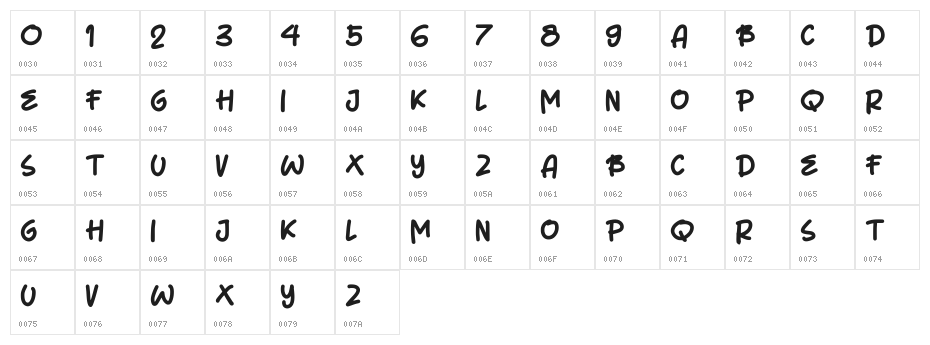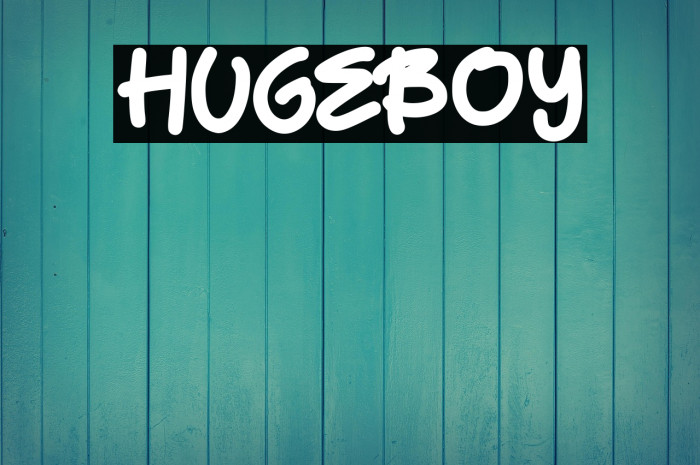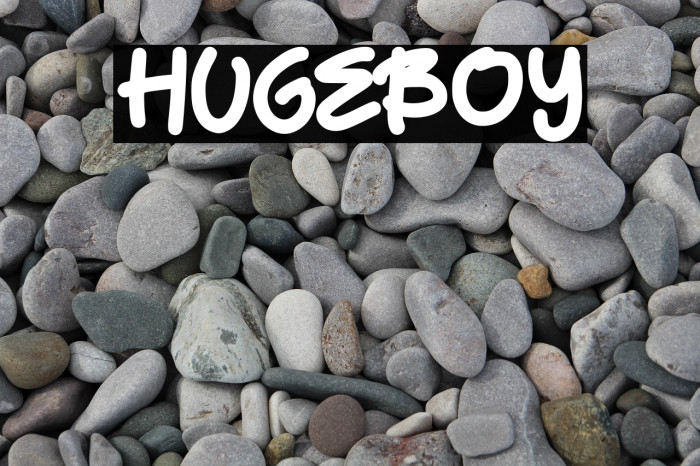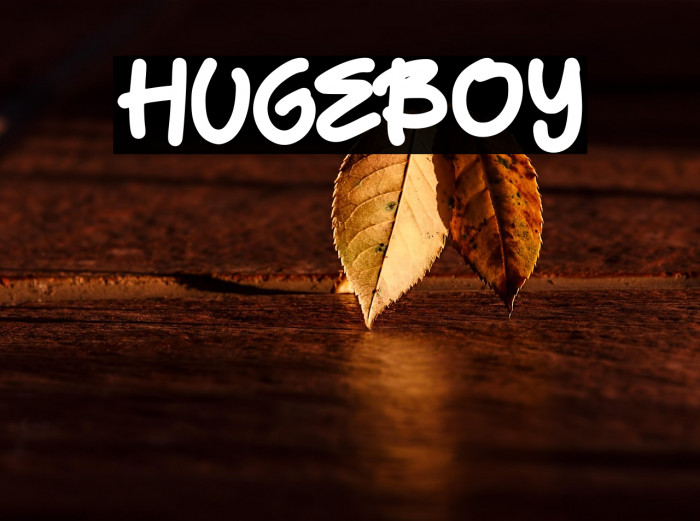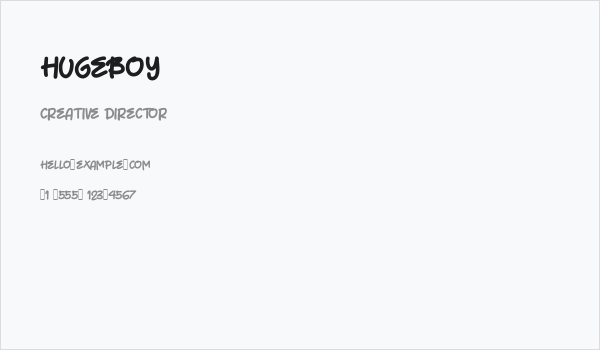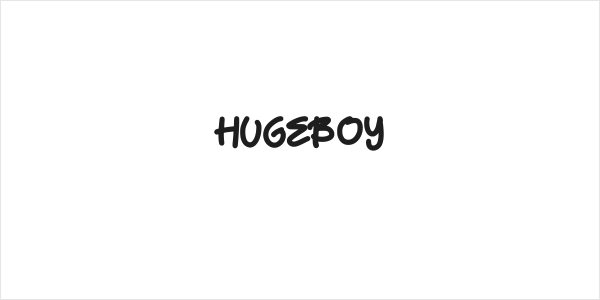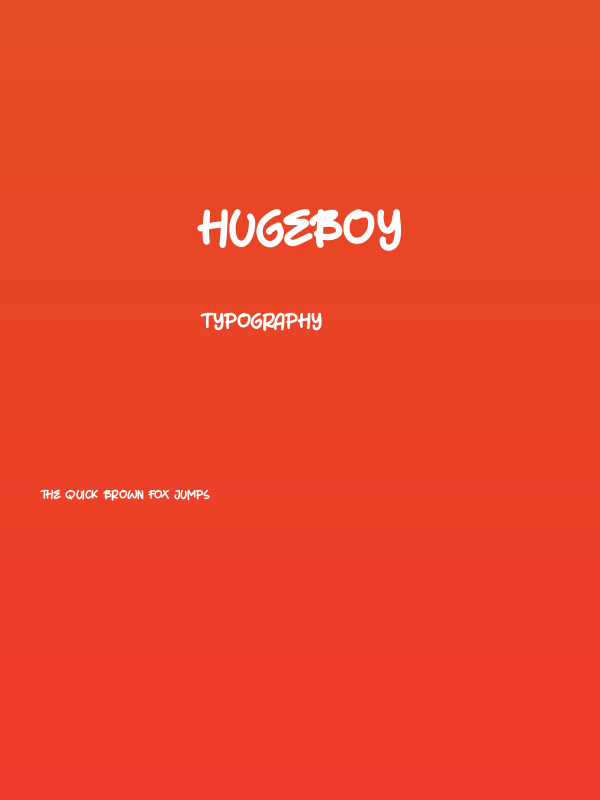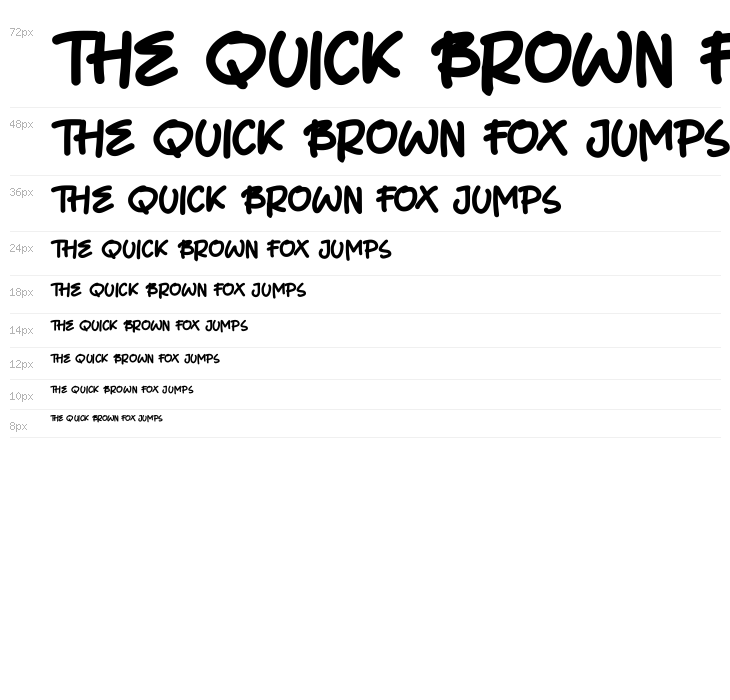
HugeBoy Font
HugeBoy Description
This font features a bold, playful style with a handwritten appearance. The characters are rounded and slightly slanted, giving them a dynamic and energetic feel. The strokes are thick and consistent, providing a strong visual impact. The overall design is casual and friendly, making it suitable for informal and creative projects. The font maintains a uniform weight throughout, ensuring readability while adding a touch of personality to the text. Its unique style is ideal for capturing attention and conveying a sense of fun and creativity.
| Proposed Projects | Ideal for children's books, playful branding, casual invitations, and creative posters. |